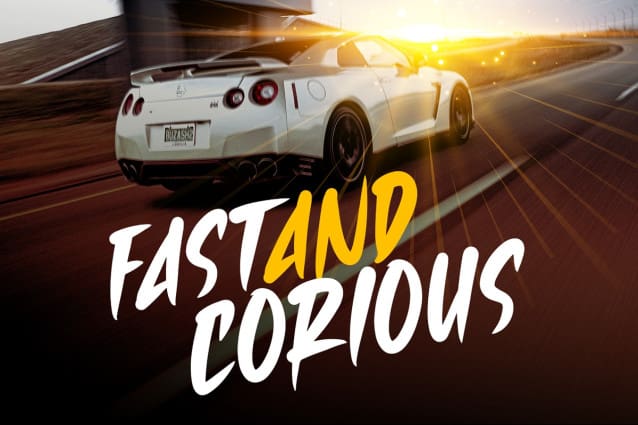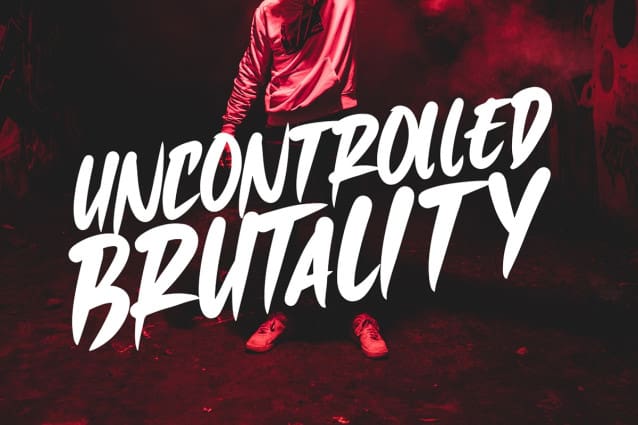
Therisc Brush Font
Therisc Brush Font a handwritten font that brings authentic charm and a personal touch to your design projects. Perfect for designers, artists, and creatives who seek to add a warm and inviting feel to their work, Therisc offers a beautifully crafted script that captures the essence of true handwriting.
Ideal for wedding invitations, greeting cards, social media graphics, and personal branding, Therisc’s flowing strokes and natural character shapes provide an intimate and genuine aesthetic. Each letter is meticulously designed to convey the spontaneity and uniqueness of hand-drawn lettering, ensuring your designs resonate with warmth and personality.
The “Therisc Brush” font includes a full set of uppercase and lowercase letters, numbers, punctuation marks, and ligatures. This comprehensive set allows for seamless integration into various design projects, from heartfelt messages to stylish branding.
Add a touch of authenticity to your designs with Therisc Brush, the handwritten font that exudes personal charm and elegance.